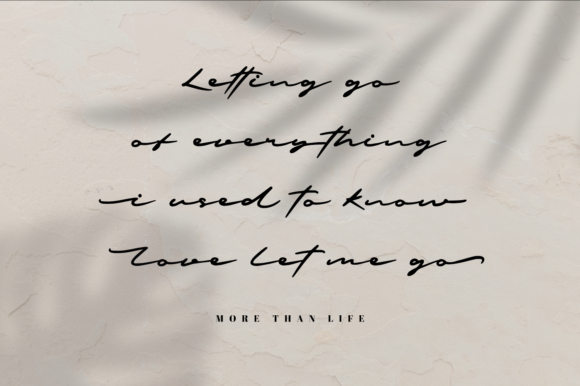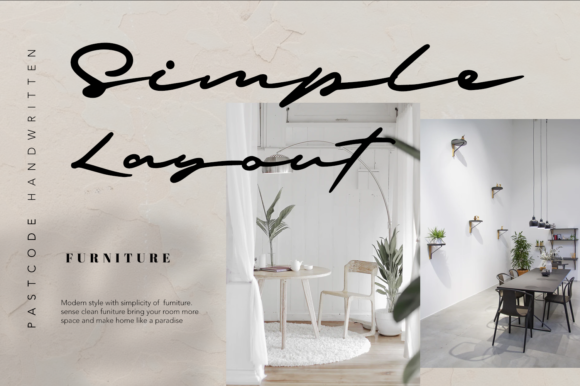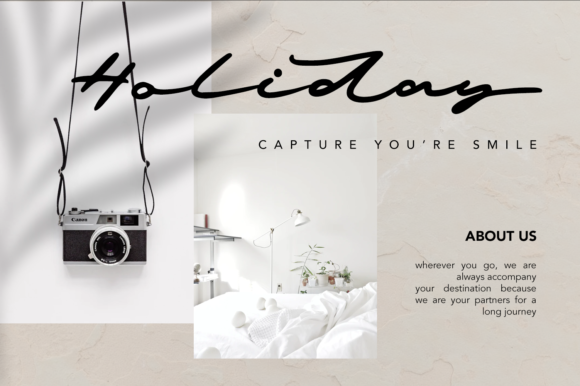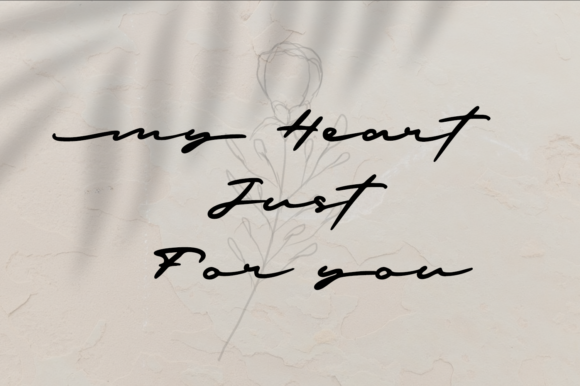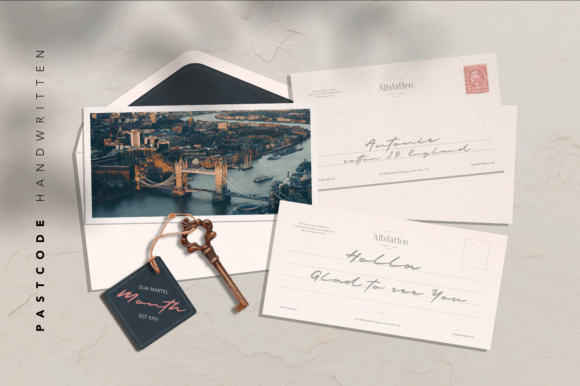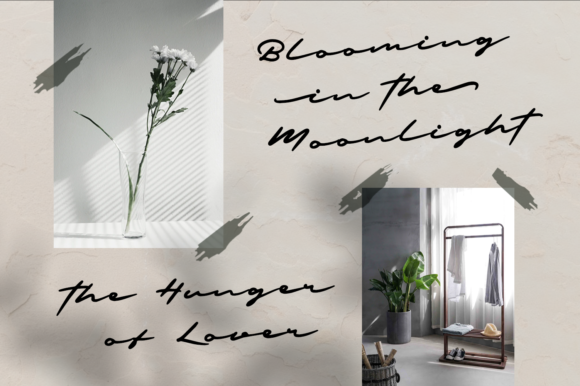
Introduction to Pastcode Font
Have you ever stared at a blank canvas, feeling like the perfect design is just out of reach? That’s where the magic of a high-quality font comes in – and for designers, there’s one that stands out from the rest: Pastcode Font. This elegant script font is a design enthusiast’s dream come true, perfect for adding a touch of sophistication to any creative project.
Whether you’re crafting invitations, logos, or social media posts, Pastcode Font is the perfect addition to your design arsenal. With its stunning, handwritten style and transparent background, it’s a versatile resource that’s sure to elevate your designs to the next level. And the best part? It’s available for free download, making it a valuable resource for designers of all levels.
- Includes a wide range of characters, including uppercase and lowercase letters, numbers, and special characters, making it a versatile design resource.
- Designed with a modern and sleek aesthetic, making it an ideal choice for contemporary design projects.
Honest Review: Pastcode Font
As a designer, I’m always on the lookout for high-quality design resources to elevate my creative projects. Recently, I stumbled upon the Pastcode Font, and I’m excited to share my honest review with you.
- ✨ Unique and stylish aesthetic: The Pastcode Font boasts a distinct, futuristic look that’s perfect for modern designs.
- ✨ High-quality fonts: The font files are crisp and clear, ensuring that your designs look professional and polished.
However, I do have a few reservations:
- ⚠️ Limited character set: The Pastcode Font only includes a basic set of characters, which might not be sufficient for more complex designs.
- ⚠️ Transparent background: The font’s transparent background can be tricky to work with, especially when using it on complex backgrounds.
Overall, I think the Pastcode Font is a great addition to any designer’s toolkit. Its unique style and high-quality font files make it an excellent choice for modern designs. While it has some limitations, I believe the benefits outweigh the drawbacks.
How to Use Pastcode Font
Pastcode Font is a versatile and high-quality design resource ideal for creative projects. With its transparent background, it’s perfect for designers who want to add a touch of elegance to their work.
Getting the Most Out of Pastcode Font
Here are some tips to get the most out of Pastcode Font:
- Experiment with different font sizes and styles to achieve the desired look.
- Combine Pastcode Font with other design elements, such as images and shapes, to create visually appealing compositions.
- Use the transparent background feature to create stunning designs with a subtle, elegant feel.
Pastcode Font is perfect for a variety of design projects, including:
- Graphic design and branding.
- Business cards and marketing materials.
- Blog posts and articles.
Alternatives to Pastcode Font
Pacifico Font is a beautiful, high-quality script font ideal for creative projects that require a touch of elegance. It’s perfect for wedding invitations, branding, and other design elements that need a sophisticated look. When to use: For high-end branding, wedding invitations, and other creative projects that require a premium look. How it compares: Pacifico Font has a more elegant and refined feel compared to Pastcode Font, which has a more modern and playful vibe.
Great Vibes Font is a fun, modern script font perfect for creative projects that need a carefree and playful feel. It’s ideal for social media graphics, blog posts, and other design elements that require a lighthearted tone. When to use: For social media graphics, blog posts, and other design elements that need a fun and engaging look. How it compares: Great Vibes Font has a more casual and playful feel compared to Pastcode Font, which has a more modern and edgy vibe.